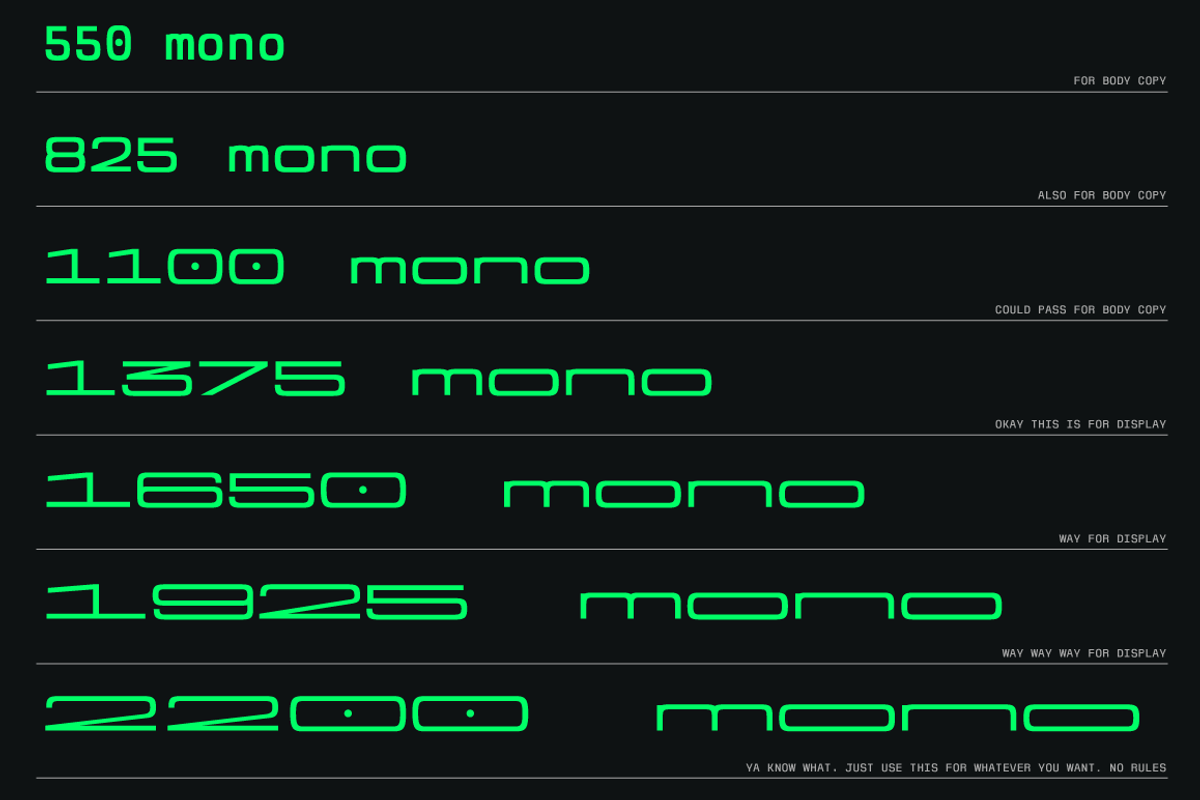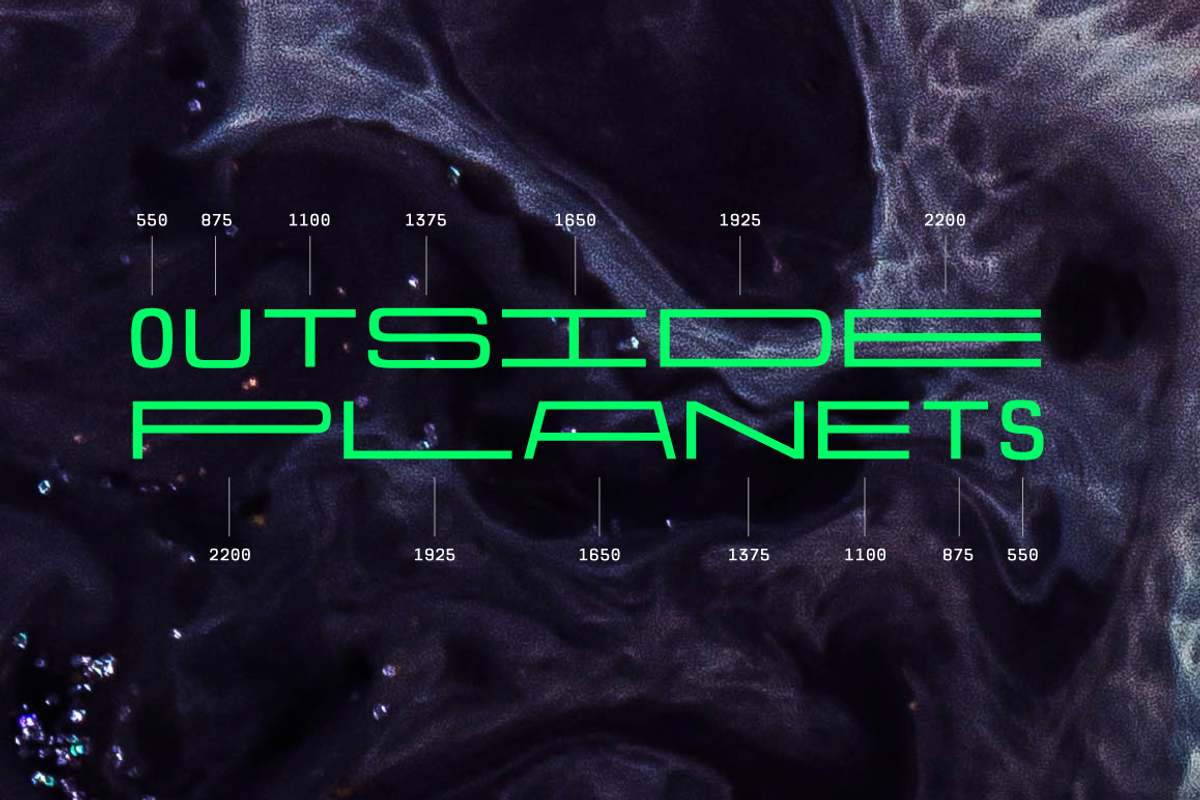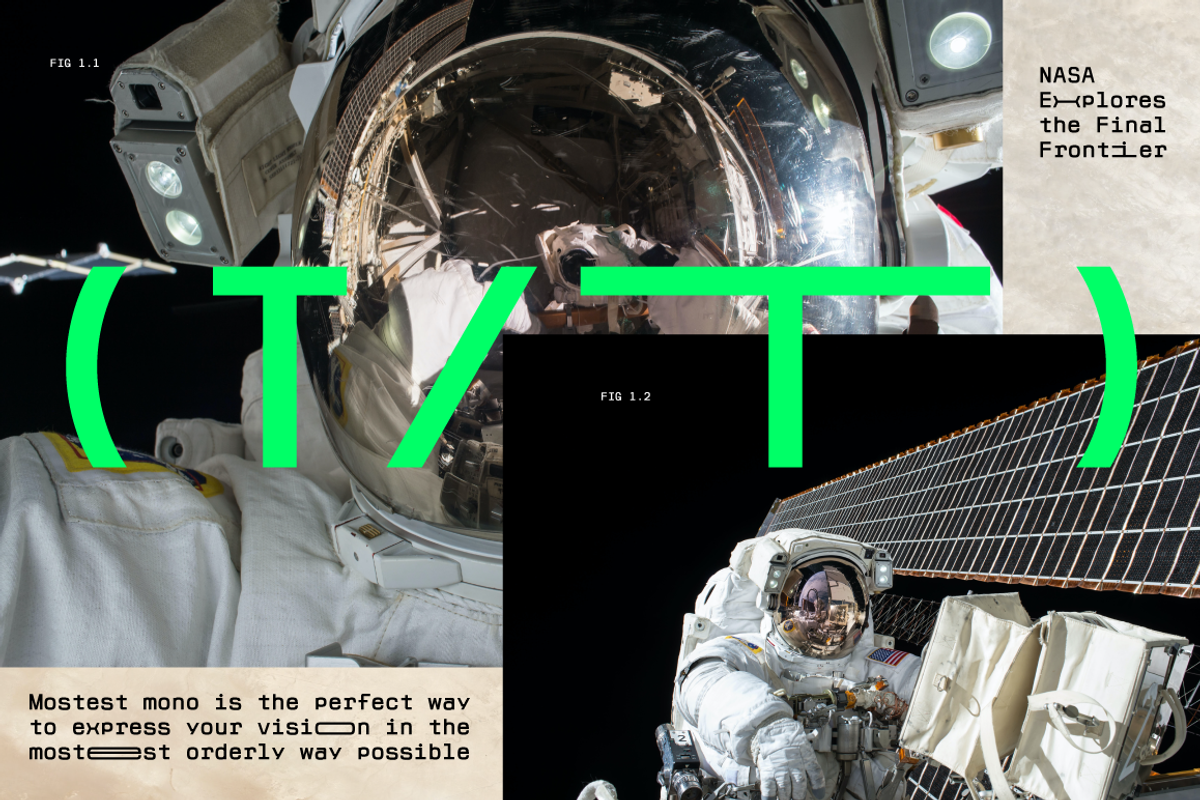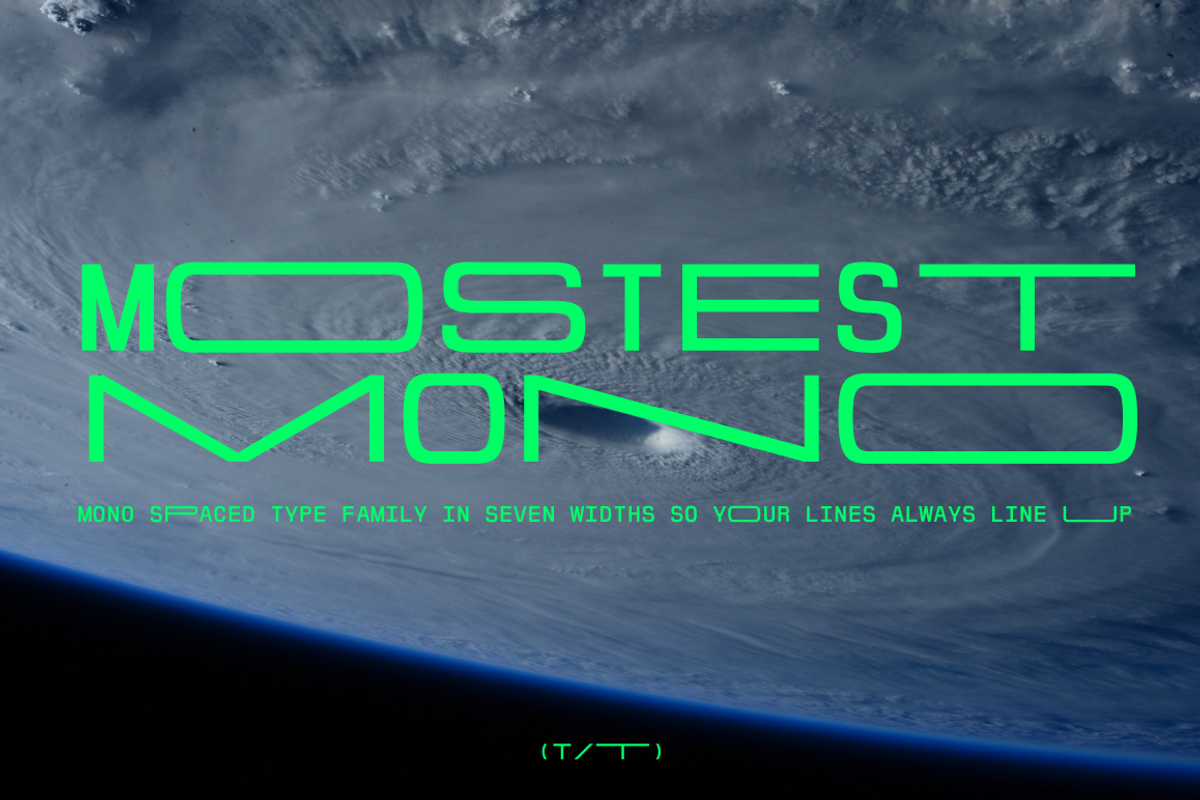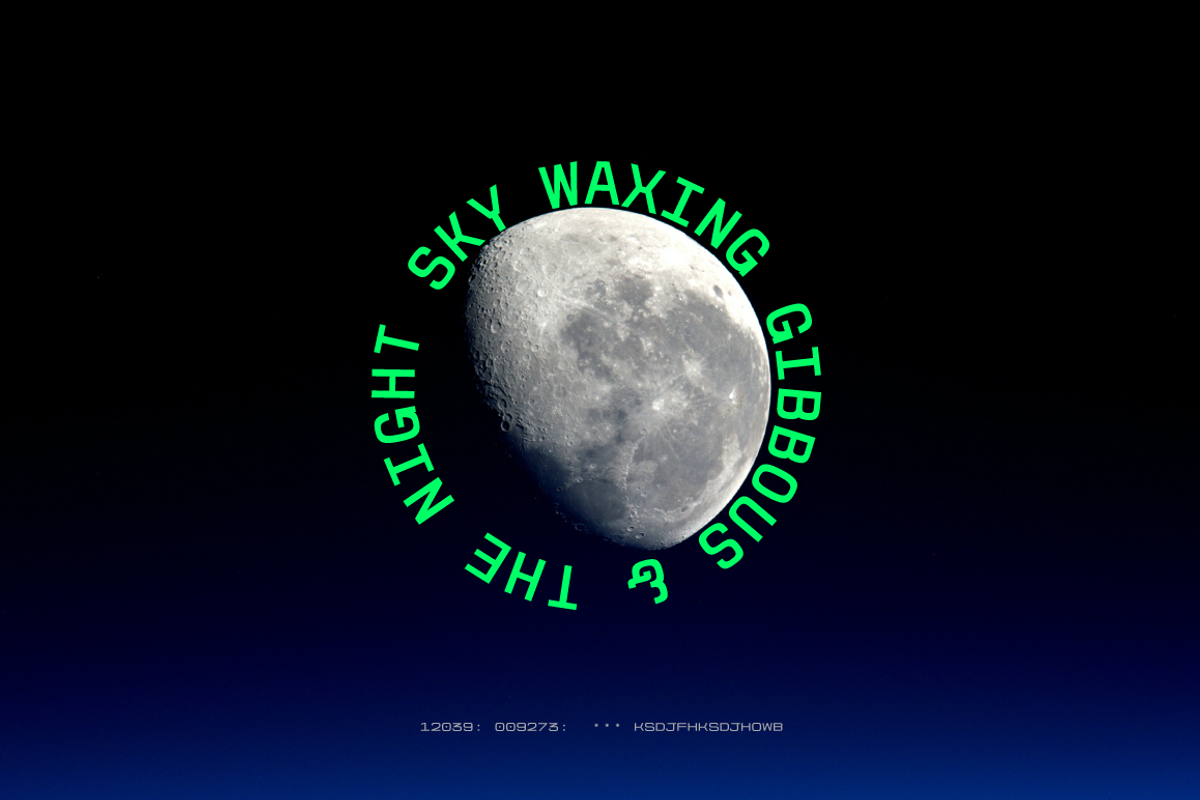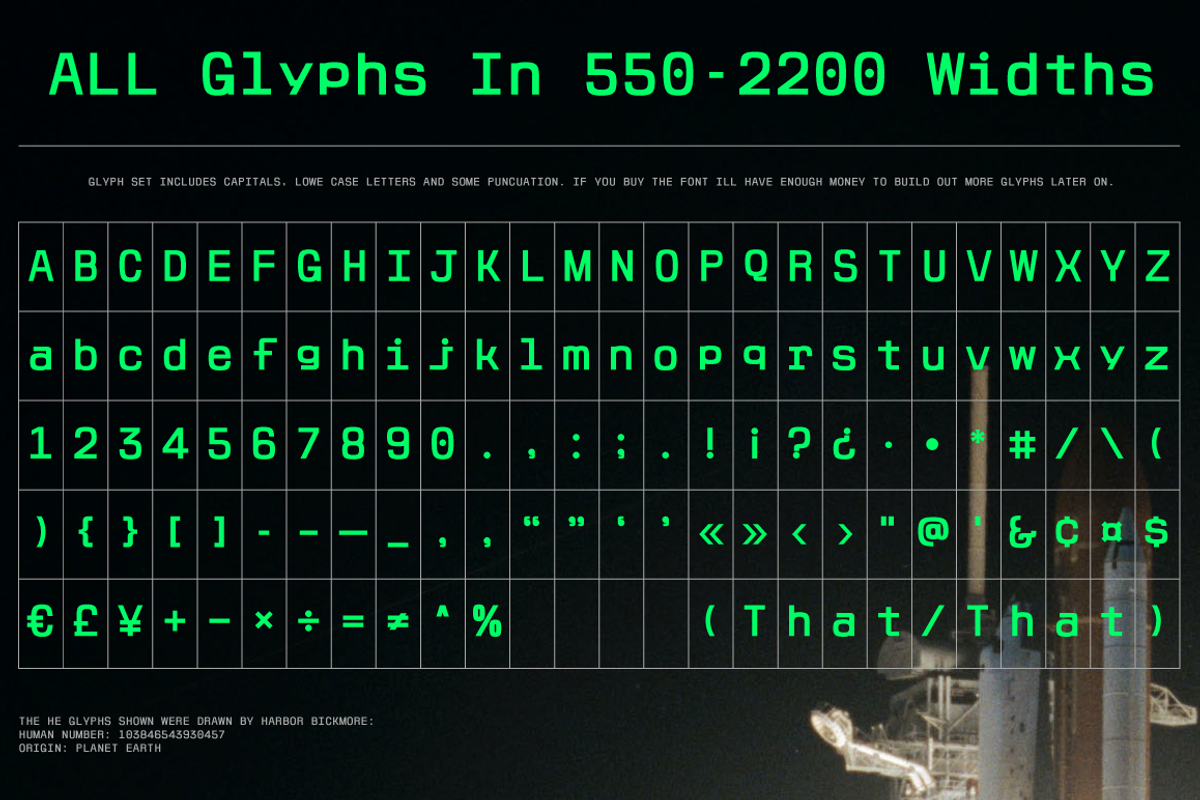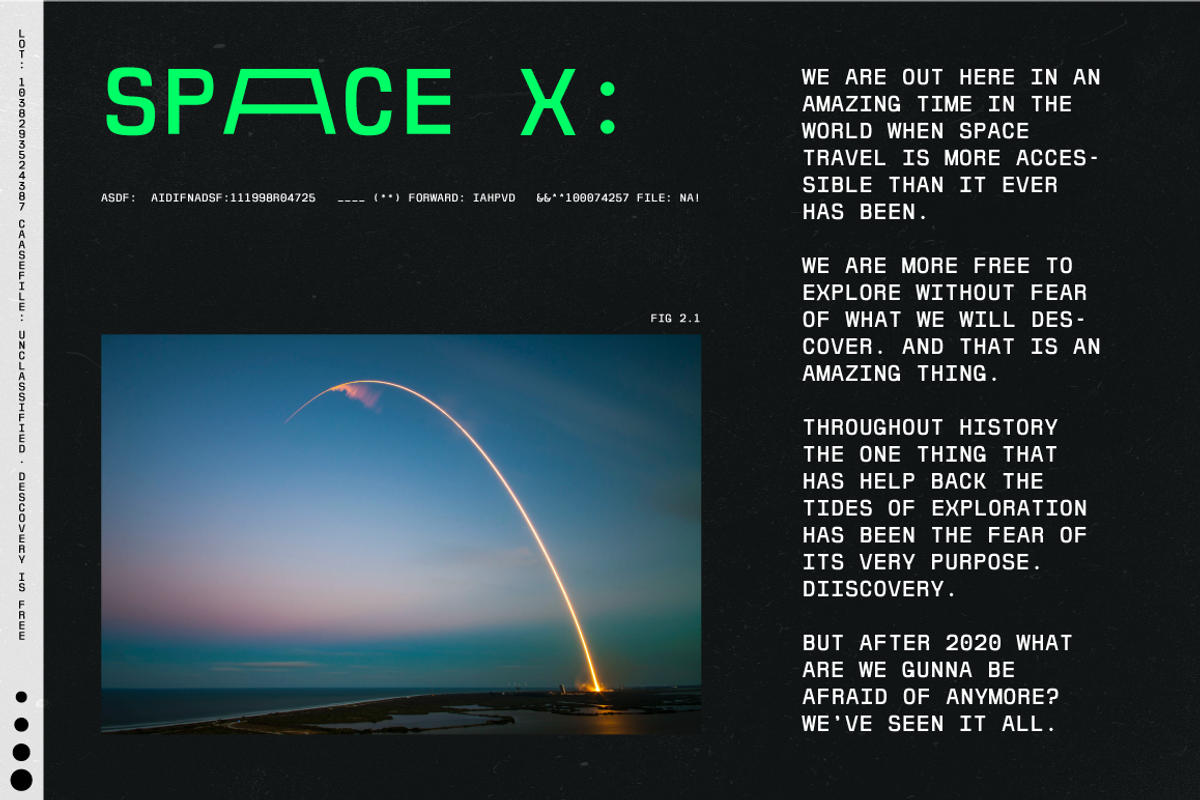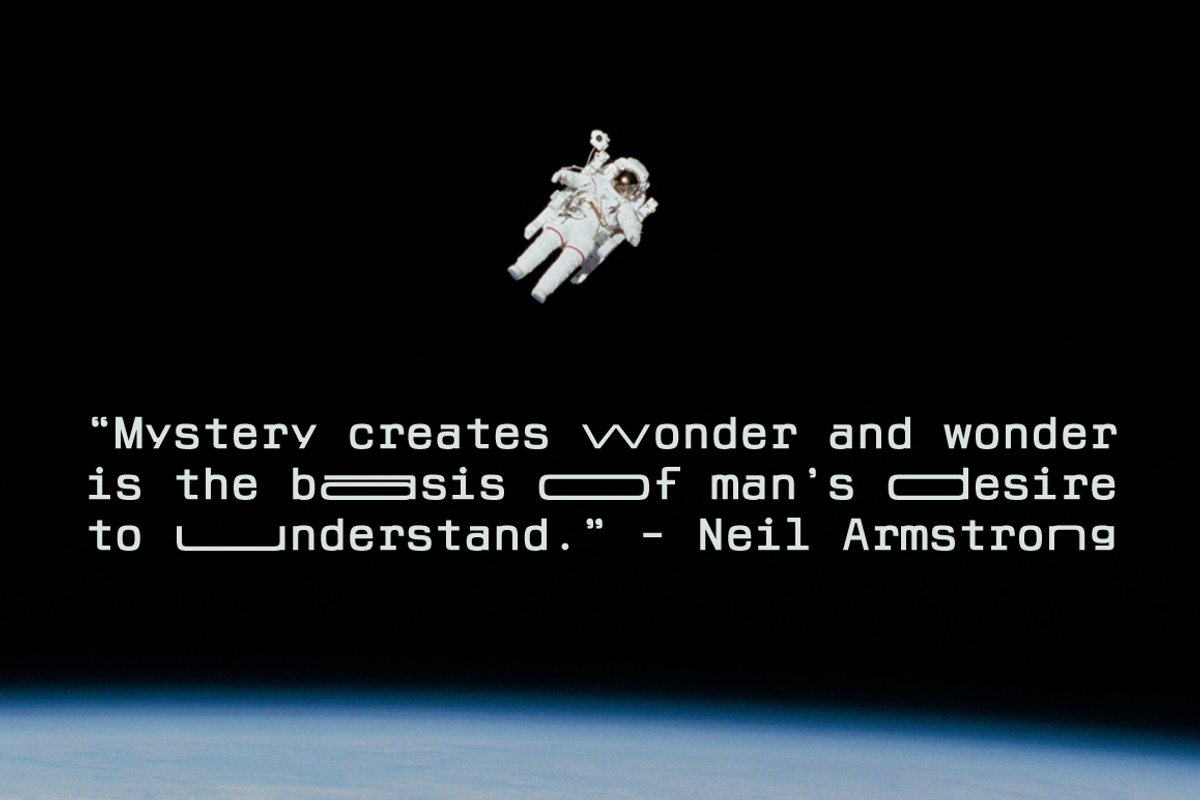
SALE: Mostest Mono Font Family
Imagine a monospaced font so mono-spaced you can't even imagine it. That's Mostest Mono. Not only is every character the same width, but there are no descenders. Mostest is a font family that comes in seven widths. It is designed so your lines of text can match up perfectly by simply changing the width of one or two characters. or you can go crazy for display text and have every character a different width.
- Seven Widths
- Letters, Numbers, Punctuation